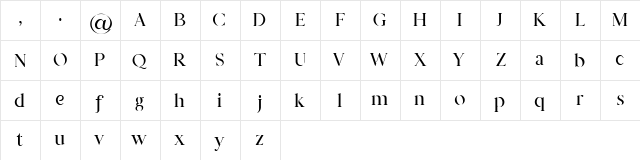
Prestige Signature Serif Demo Regular
| Foundry | Eric Kurniawan & Ade Meiada |
| Designer | Fontsgood Typefoundry |
Prestige Signature Serif Demo carries the refined structure of traditional serif typography, with bracketed terminals and considered proportions that communicate credibility and craft.